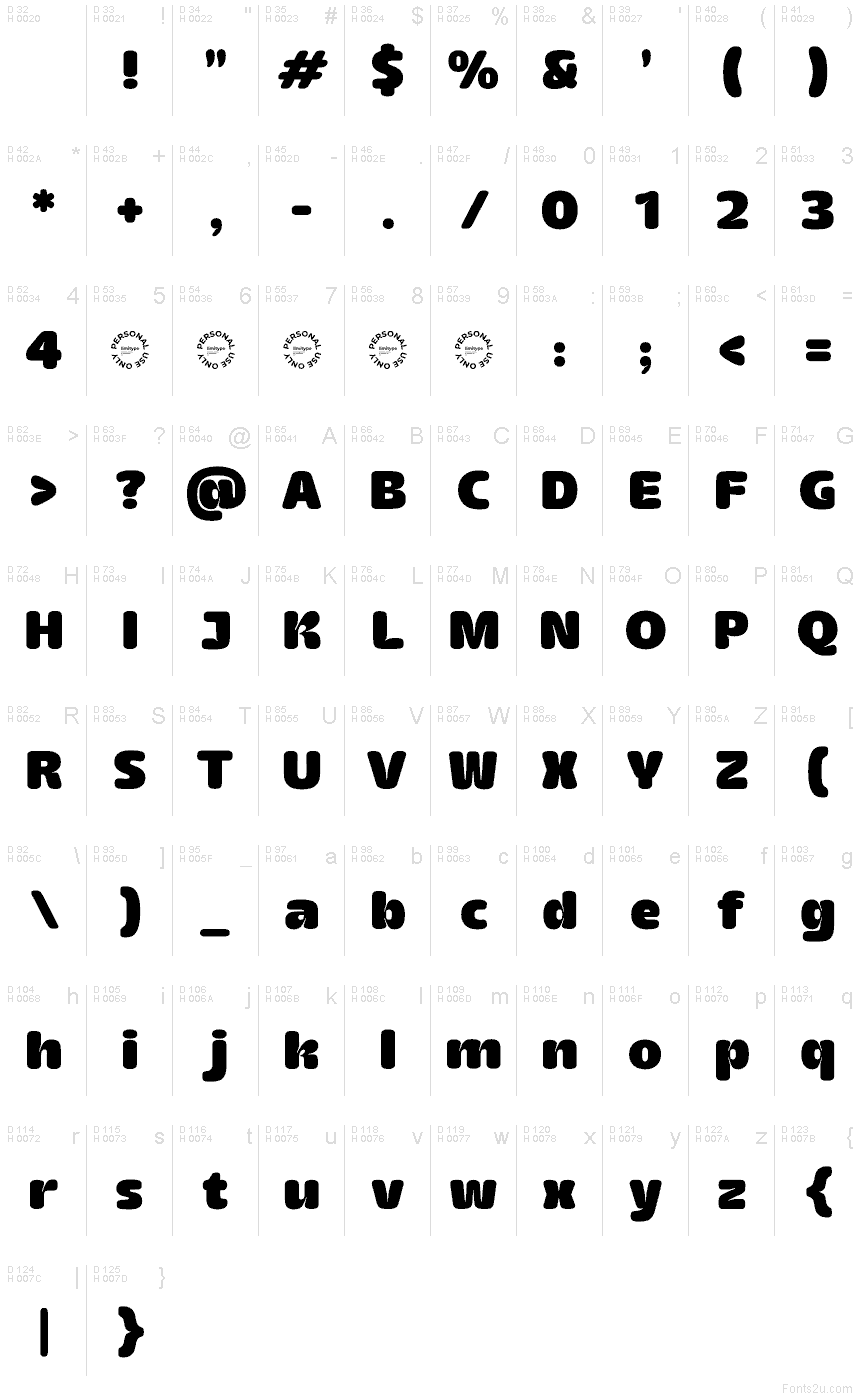
Racistant Demo
Racistant font by Furqan Sudirman of Limitype is a free bold rounded display font. Built around plush, pillowy forms with chunky curves and buttery-soft terminals, it brings a buoyant, friendly voice without slipping into chaos. The strokes feel thick and inflated, yet the spacing stays tidy, so big headlines read in one smooth breath.
Using Racistant, you get lively impact that shines on snack packaging, kids’ branding, playful logos, event posters, social graphics, and sticker-style merch. The generous curves create a rhythmic bounce that grabs attention at large sizes and still holds shape on mobile. Pair this free font with a light geometric sans for body copy, or let Racistant lead with tight tracking for ultra-bold statements.